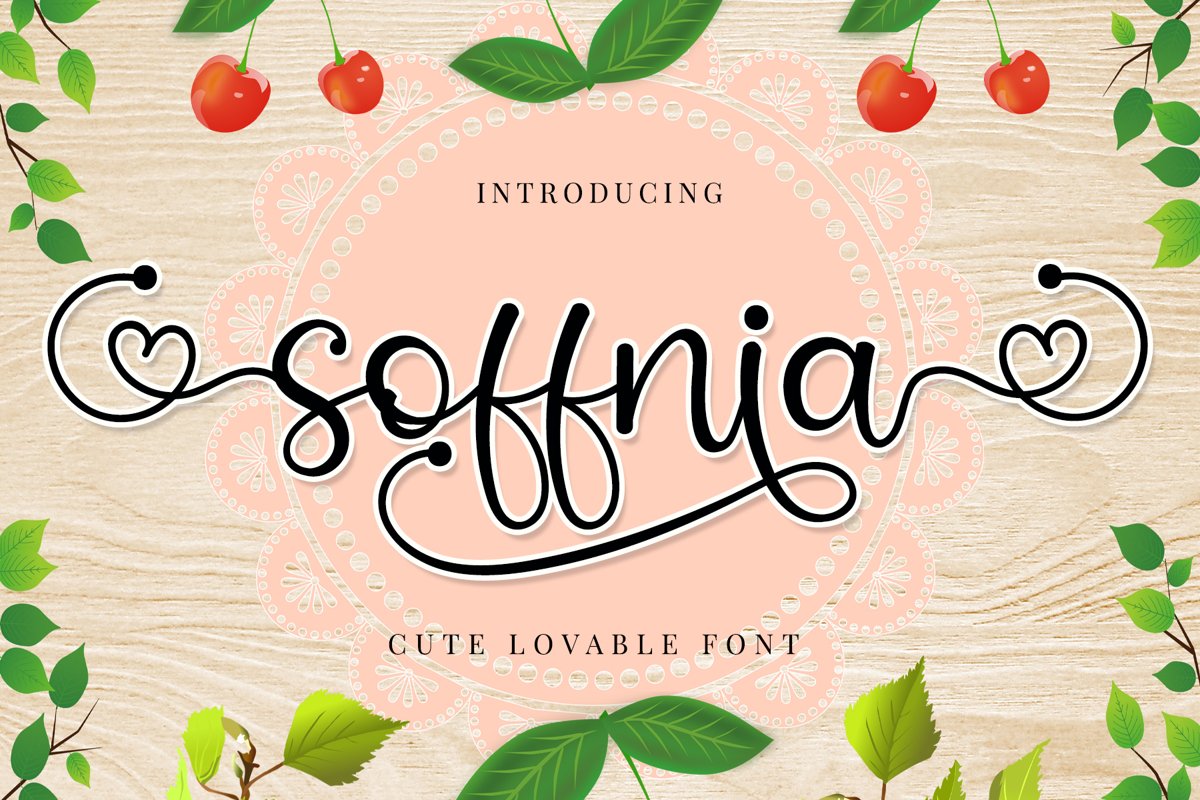
Soffnia is loved-adorable script font. Love-themed front and back swashes will add the romantic feeling for your craft.
+More than 300 Glyphs
+PUA-Encoded additional character with love accent
+Multilingual glyphs.